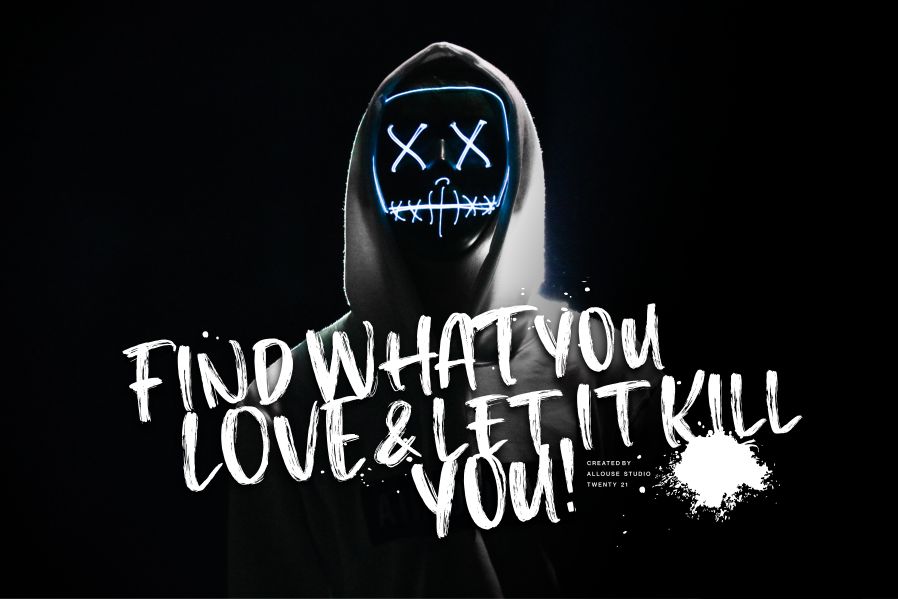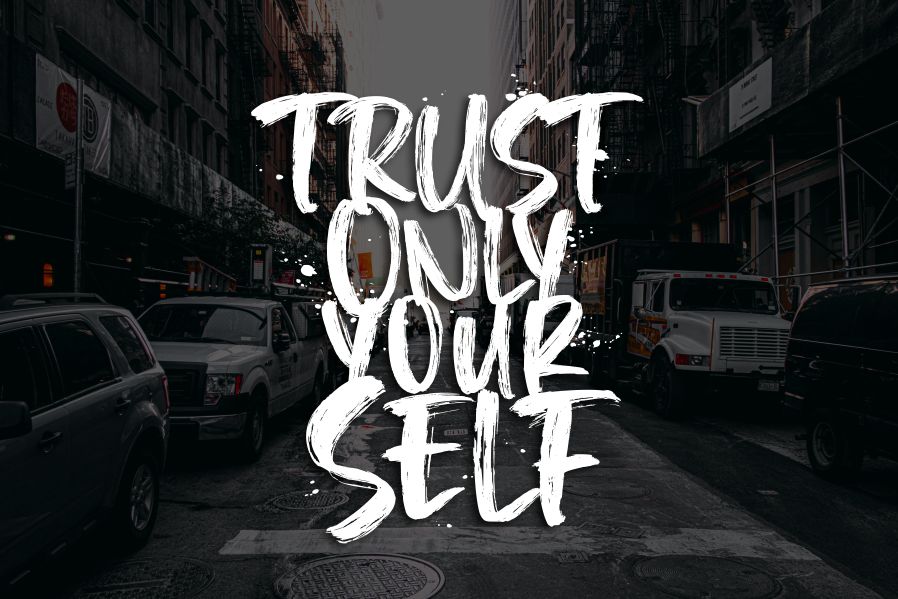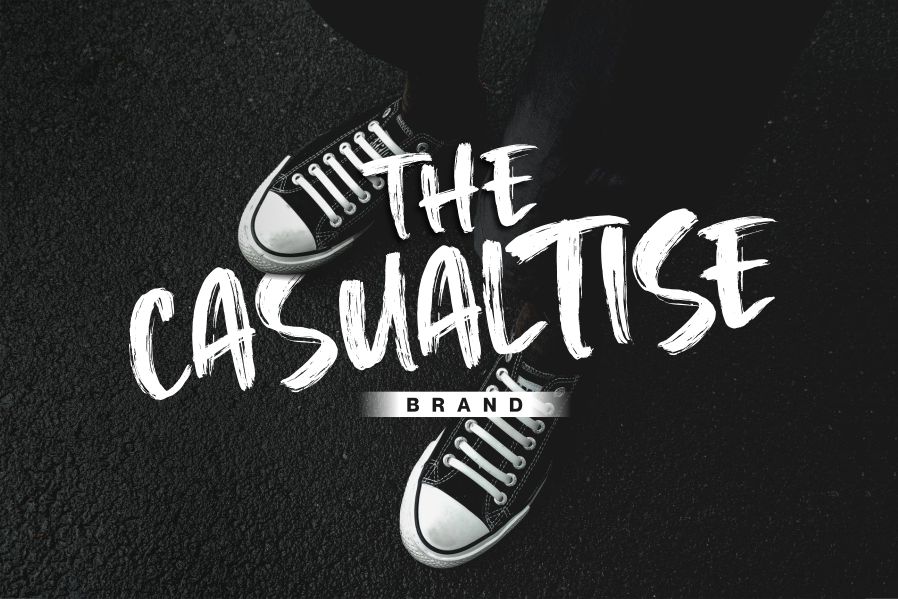
Cinemair Font
Cinemair Brush Font
This is an Authentic Brush Display Font that can satisfy all modern design needs! It is perfect for product packaging, branding projects, magazines, social media, weddings, or just used to express words above the background.